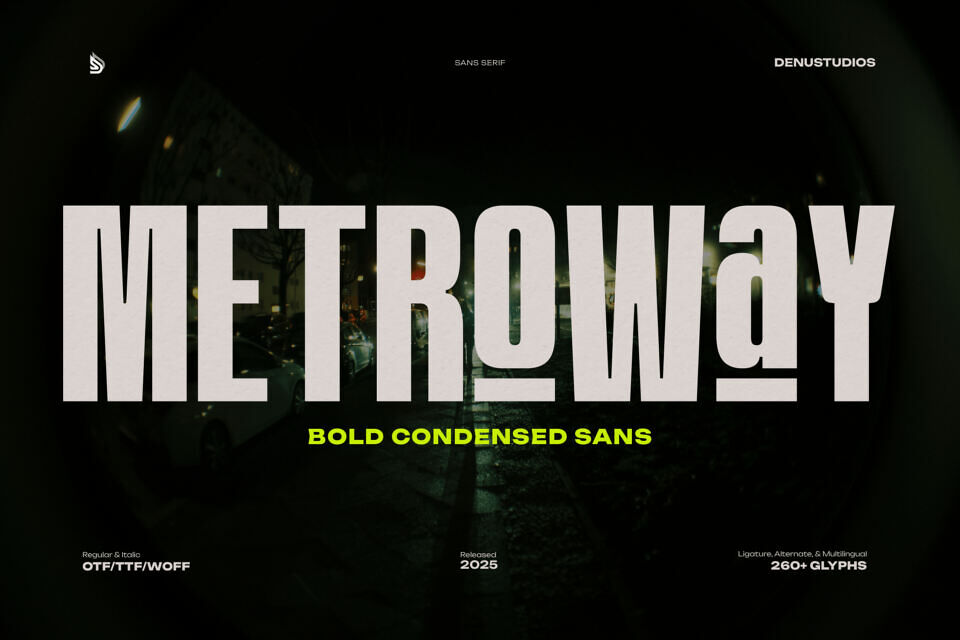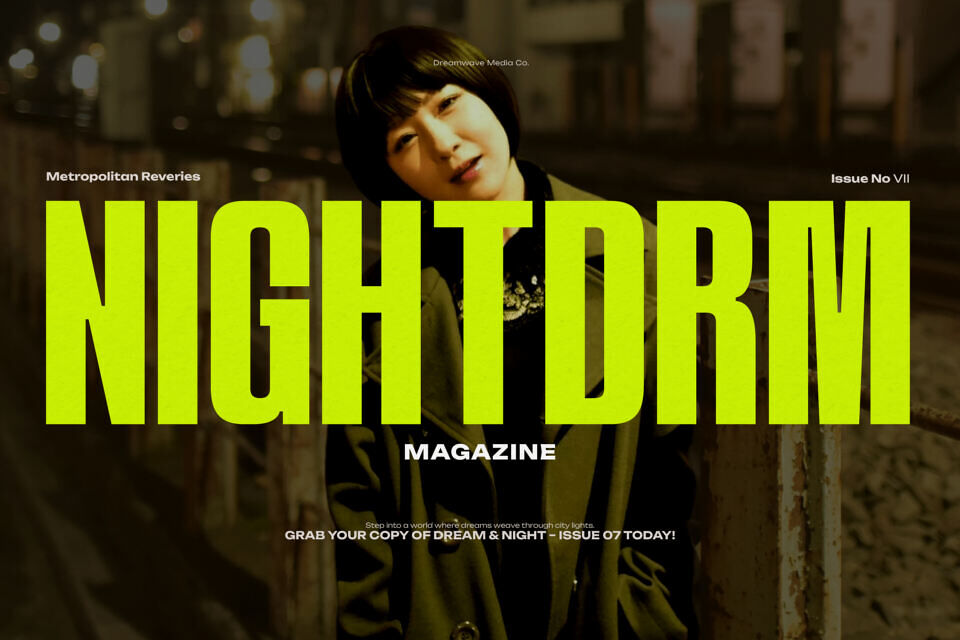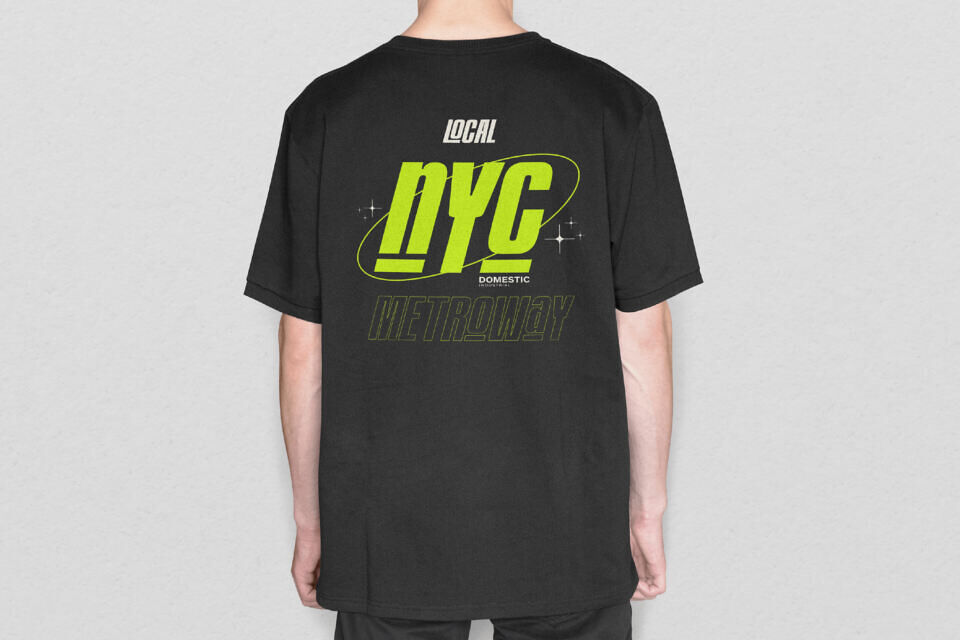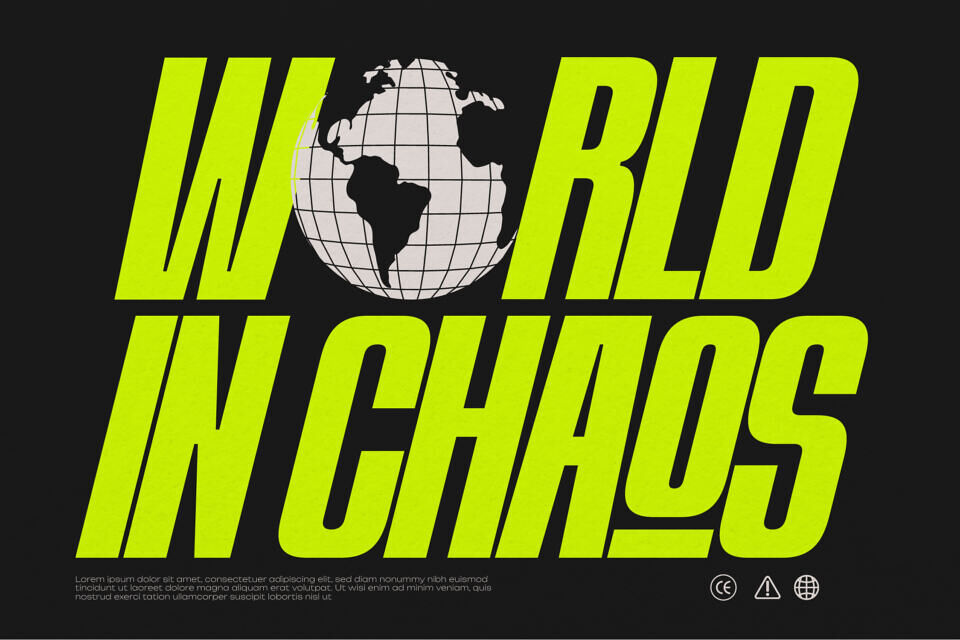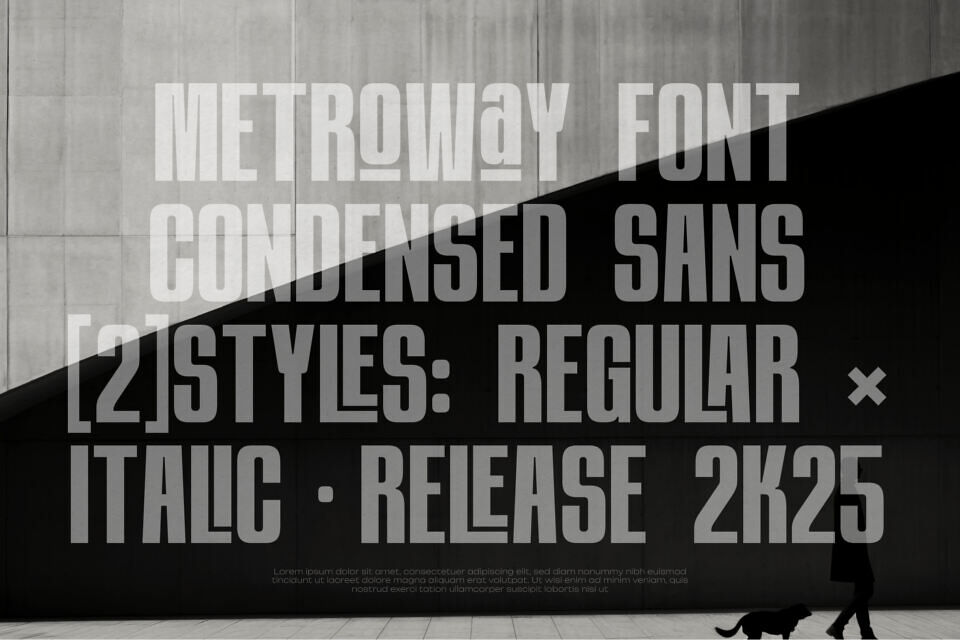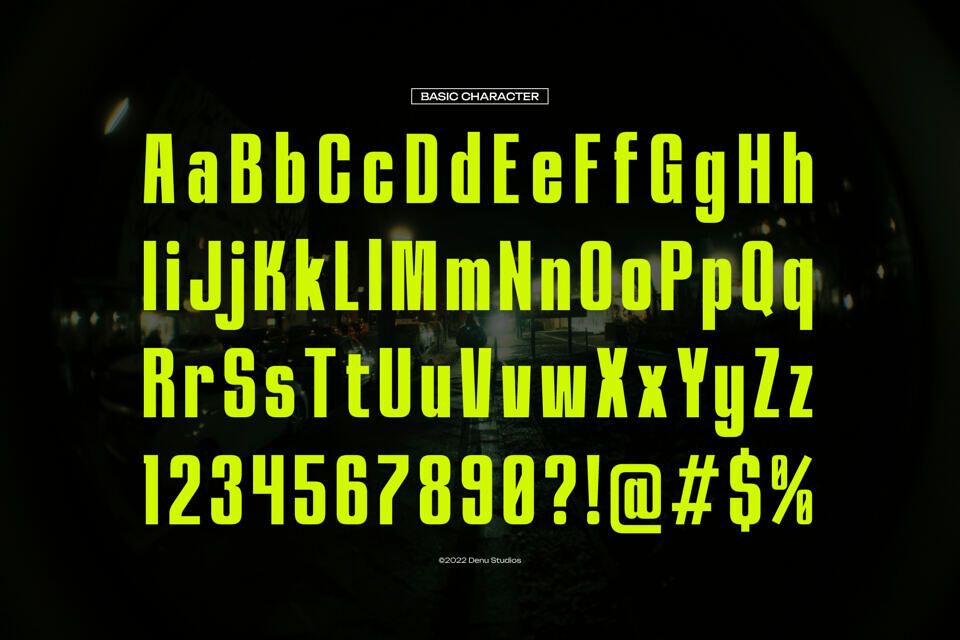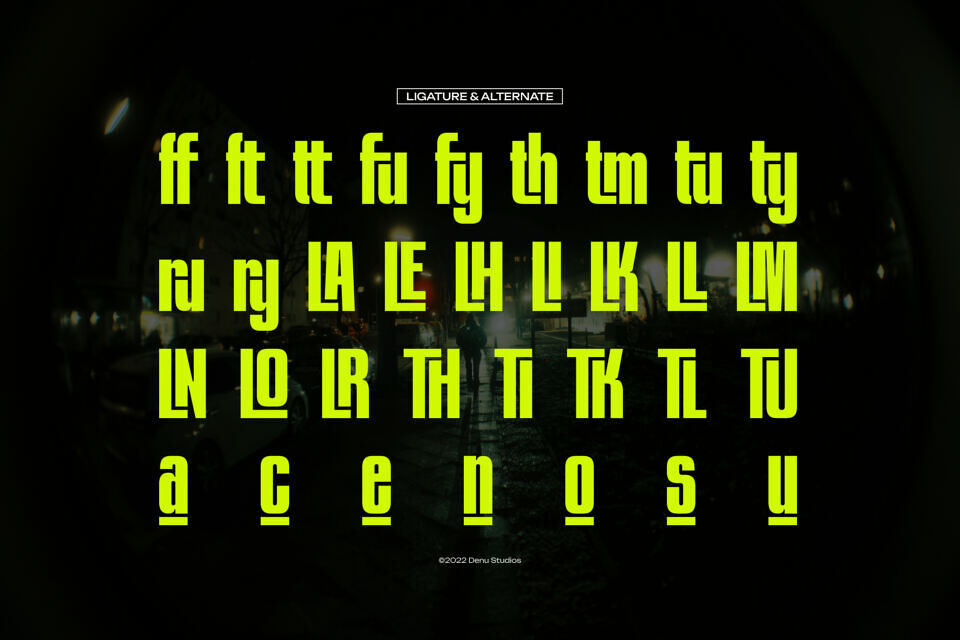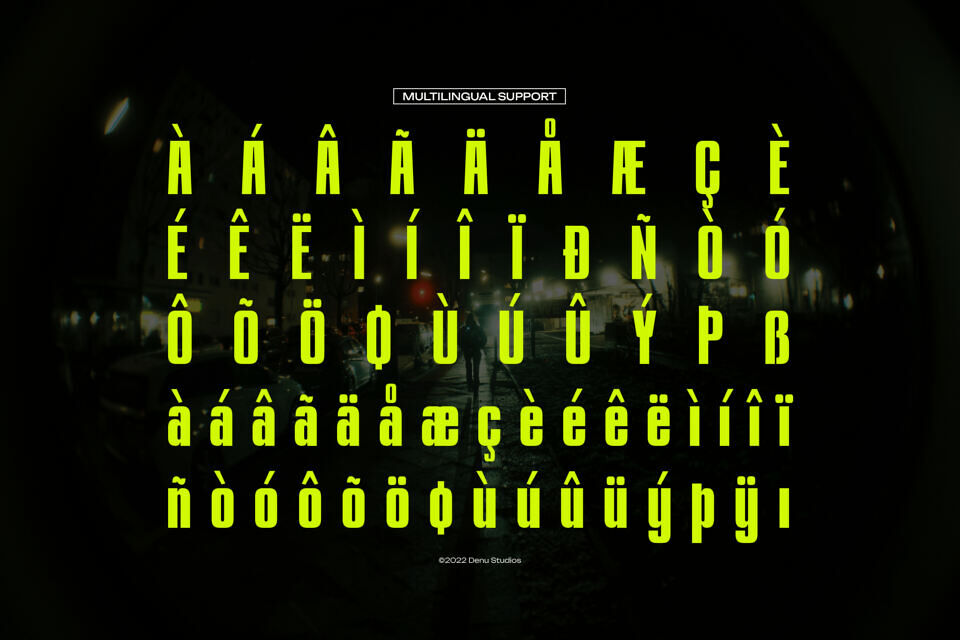
Metroway Font
Metroway is a Bold Condensed Sans from Denustudios, suitable for any projects such as: logos, branding projects, homeware designs, product packaging, mugs, quotes, posters, shopping bags, t-shirts, book covers, name card, invitation cards, greeting cards, label, photography, watermark, special events, and all your other lovely projects that need a Bold Condensed Sans taste.